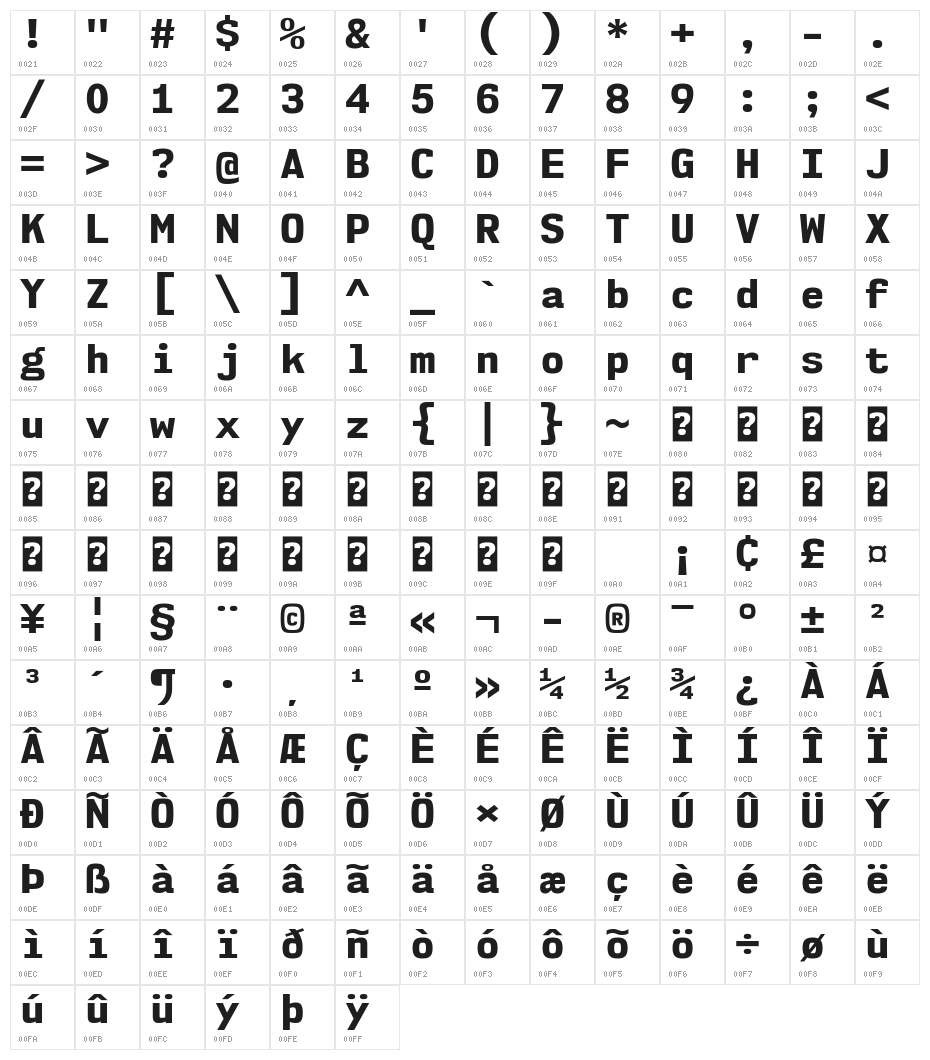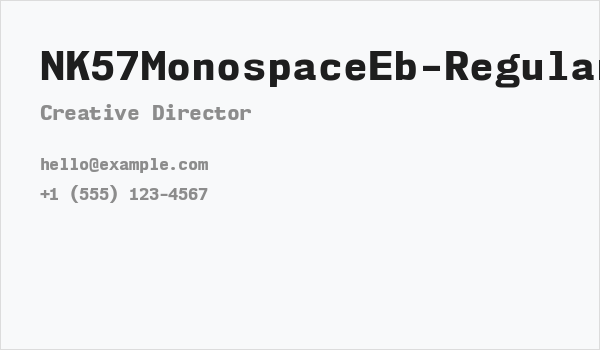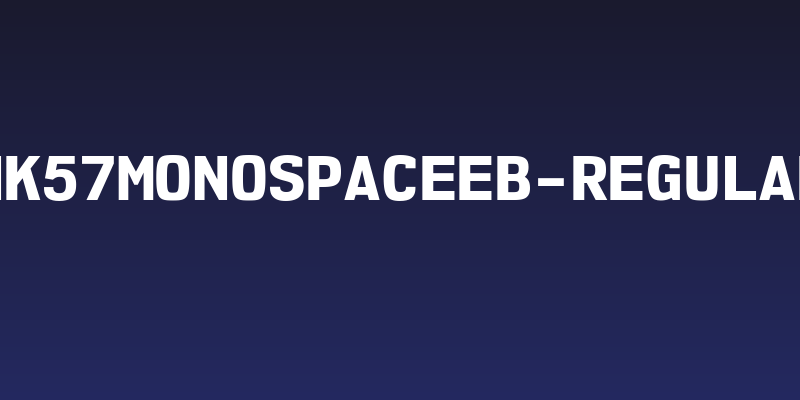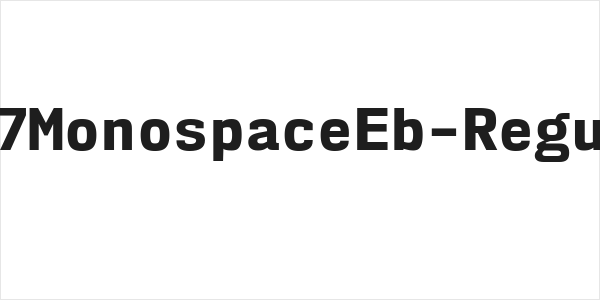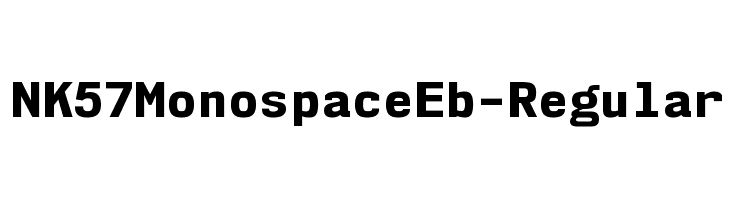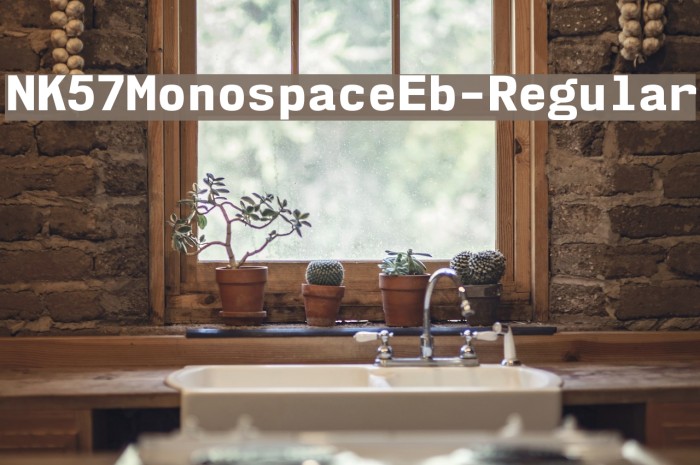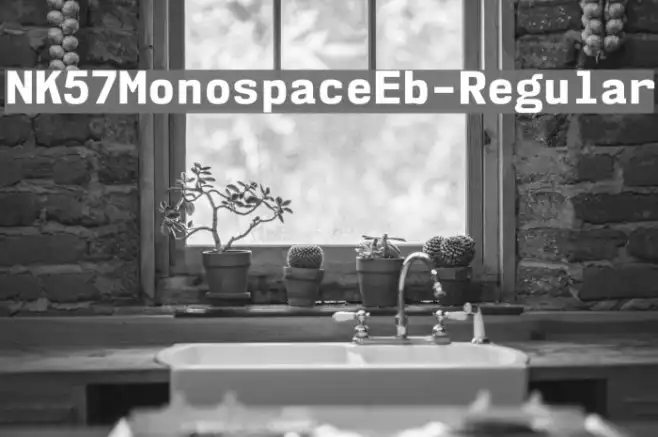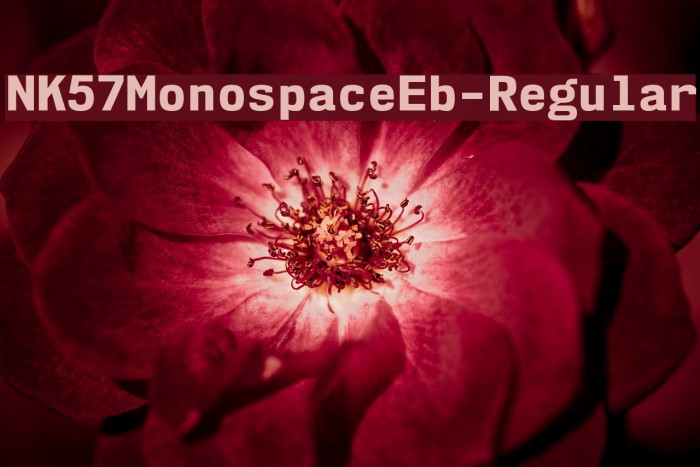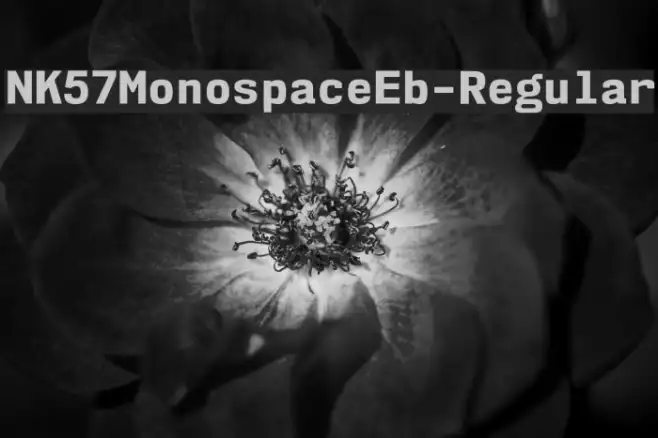
NK57MonospaceEb-Regular Font
NK57MonospaceEb-Regular Description
This typeface is a robust and modern monospaced font characterized by its uniform width across all characters. It features bold, geometric shapes with a strong presence, making it highly legible and suitable for technical and digital applications. The uppercase and lowercase letters maintain a consistent height, contributing to its orderly appearance. The numerals are clear and distinct, ensuring readability in data-heavy contexts. Special characters are well-defined, adding to the font's versatility. Its clean lines and lack of serifs give it a contemporary feel, ideal for coding, programming, and other technical uses.
| Use Case | Coding, Technical documentation, Digital interfaces |
| Proposed Projects | Ideal for coding, technical documentation, digital interfaces, and data visualization. |